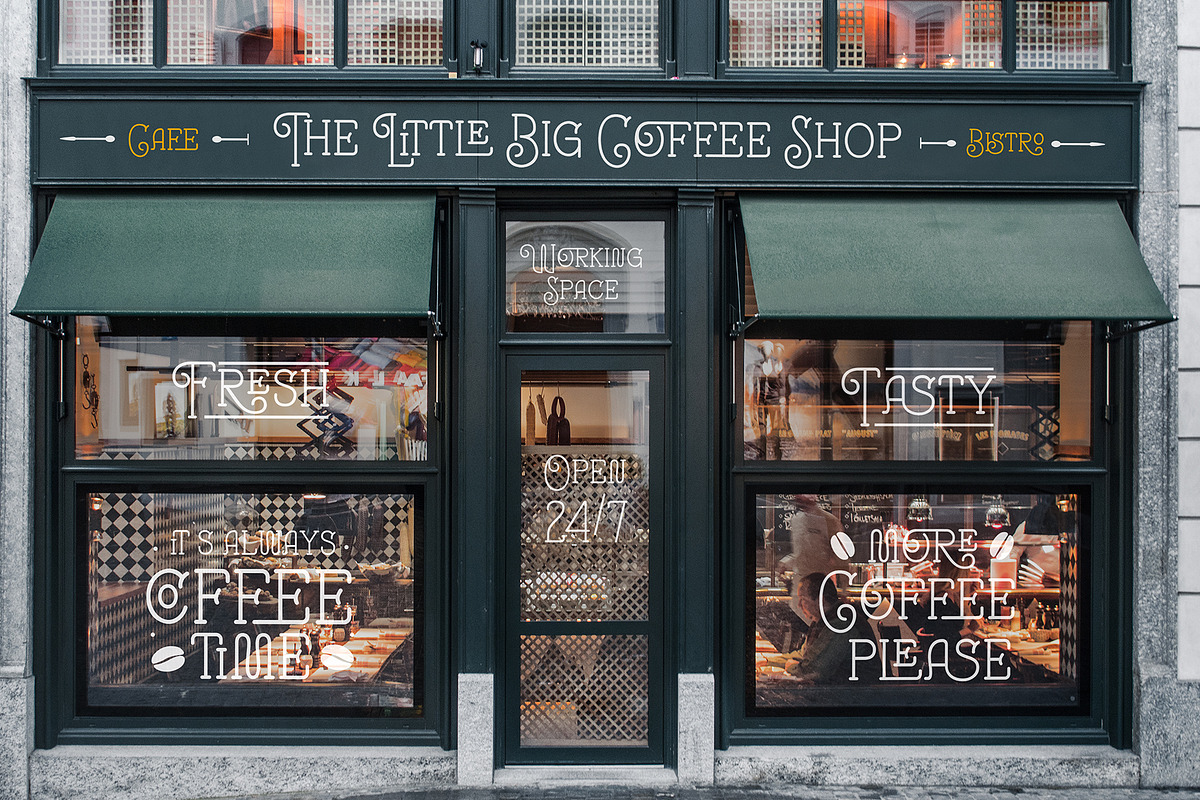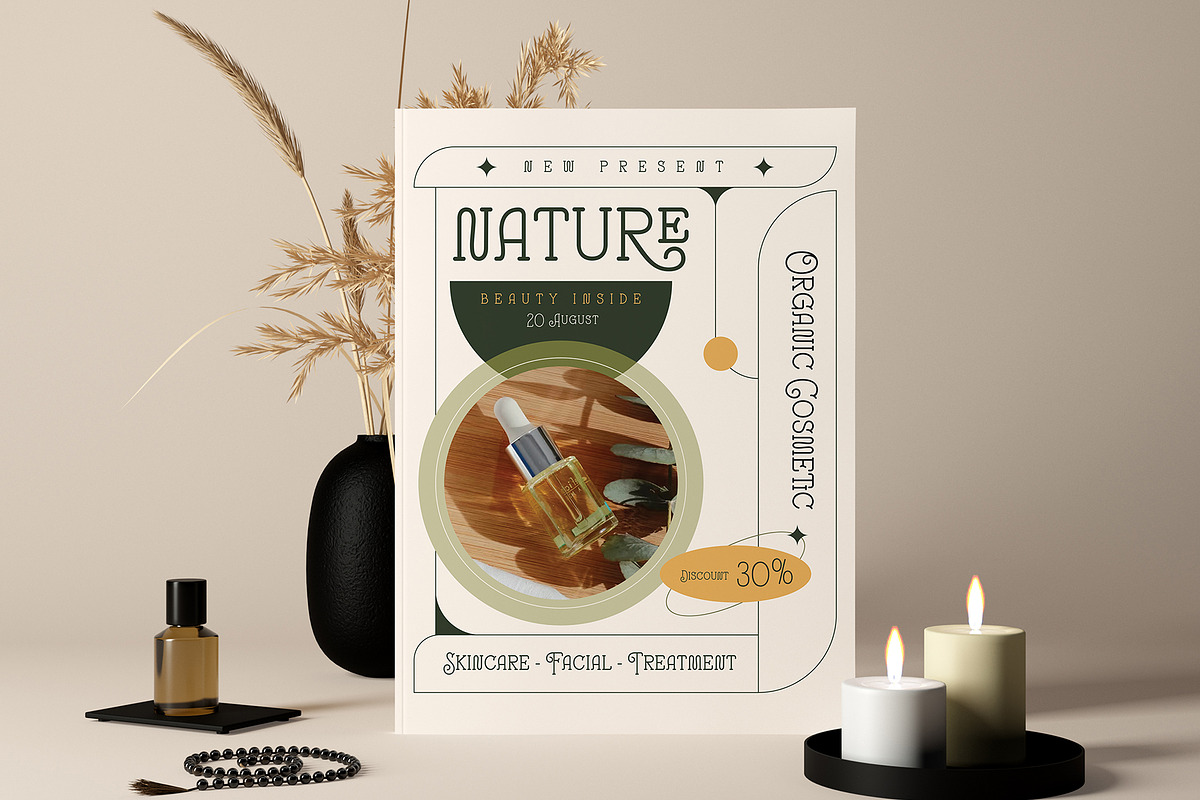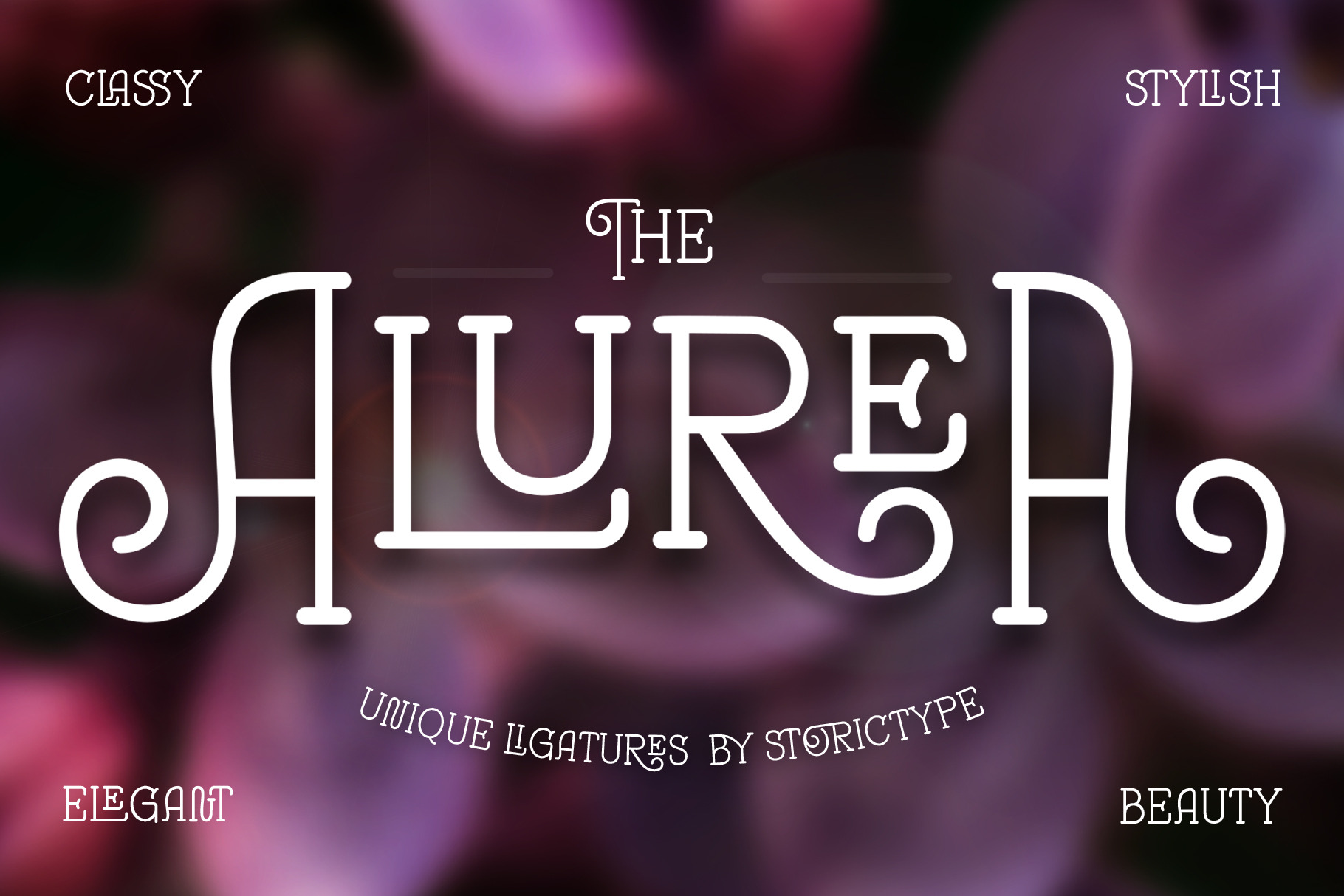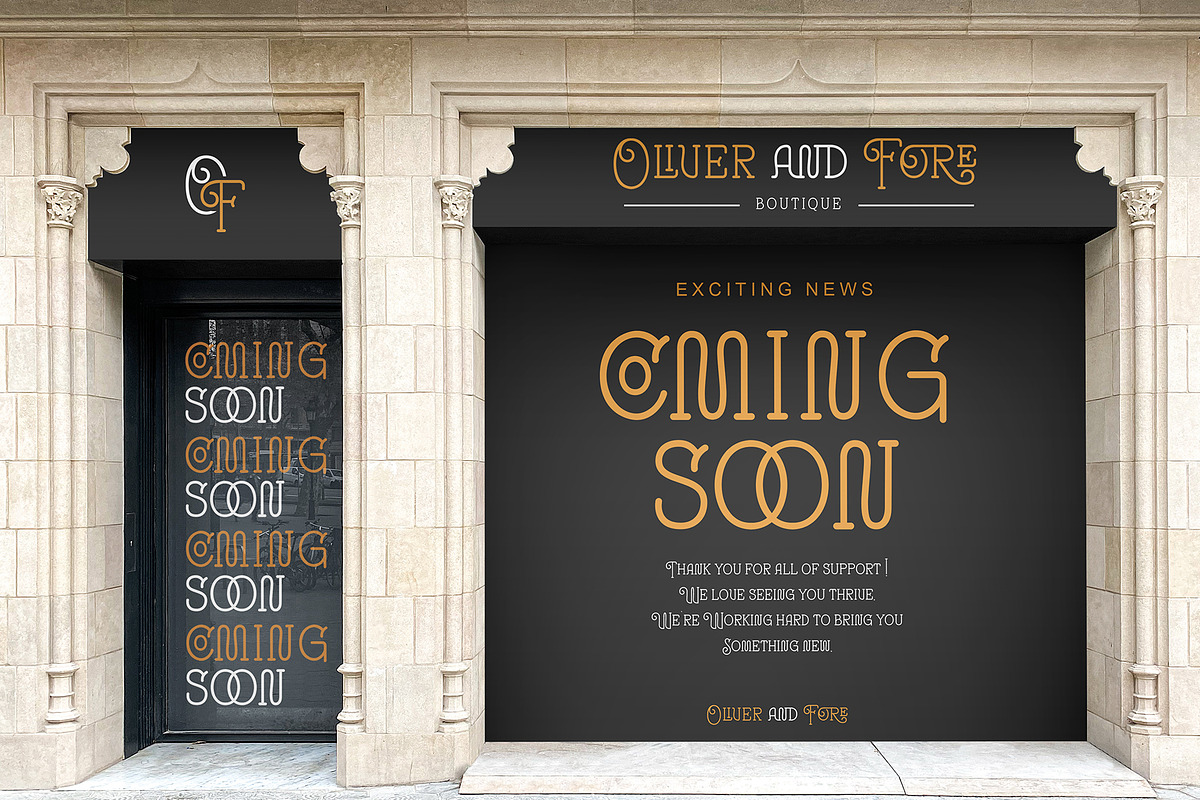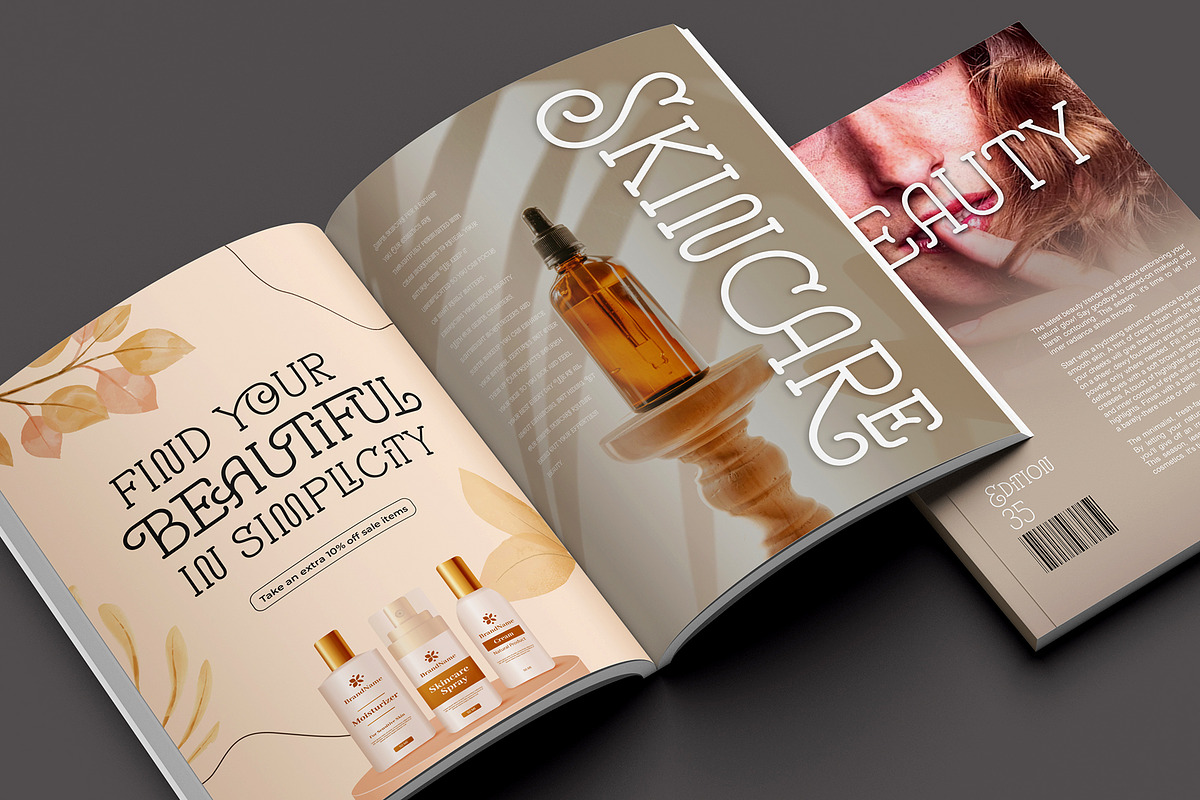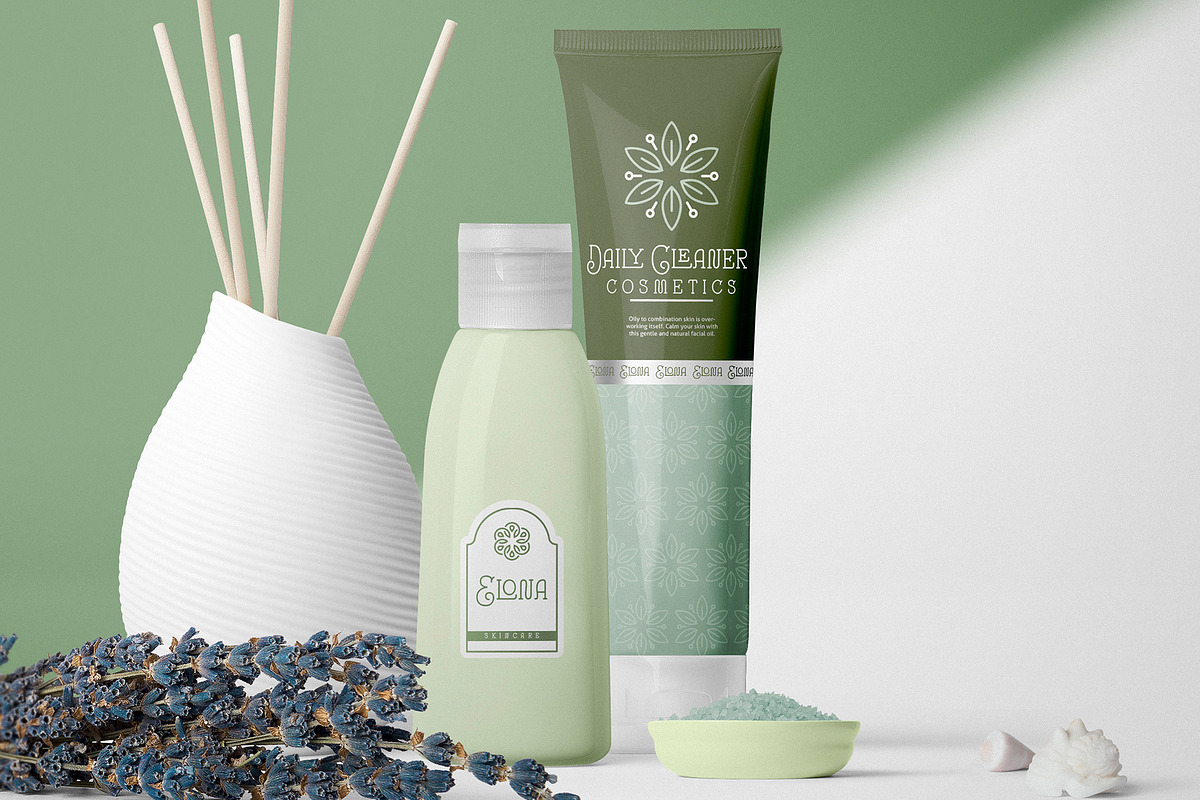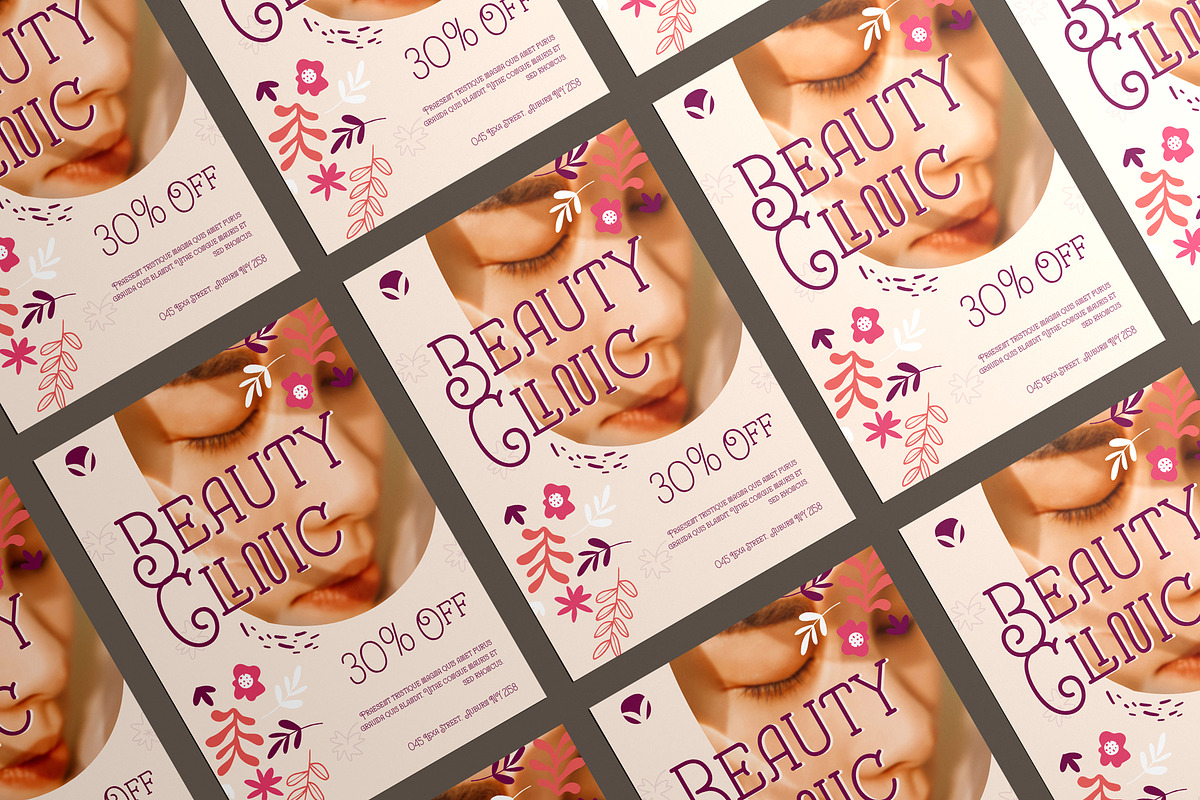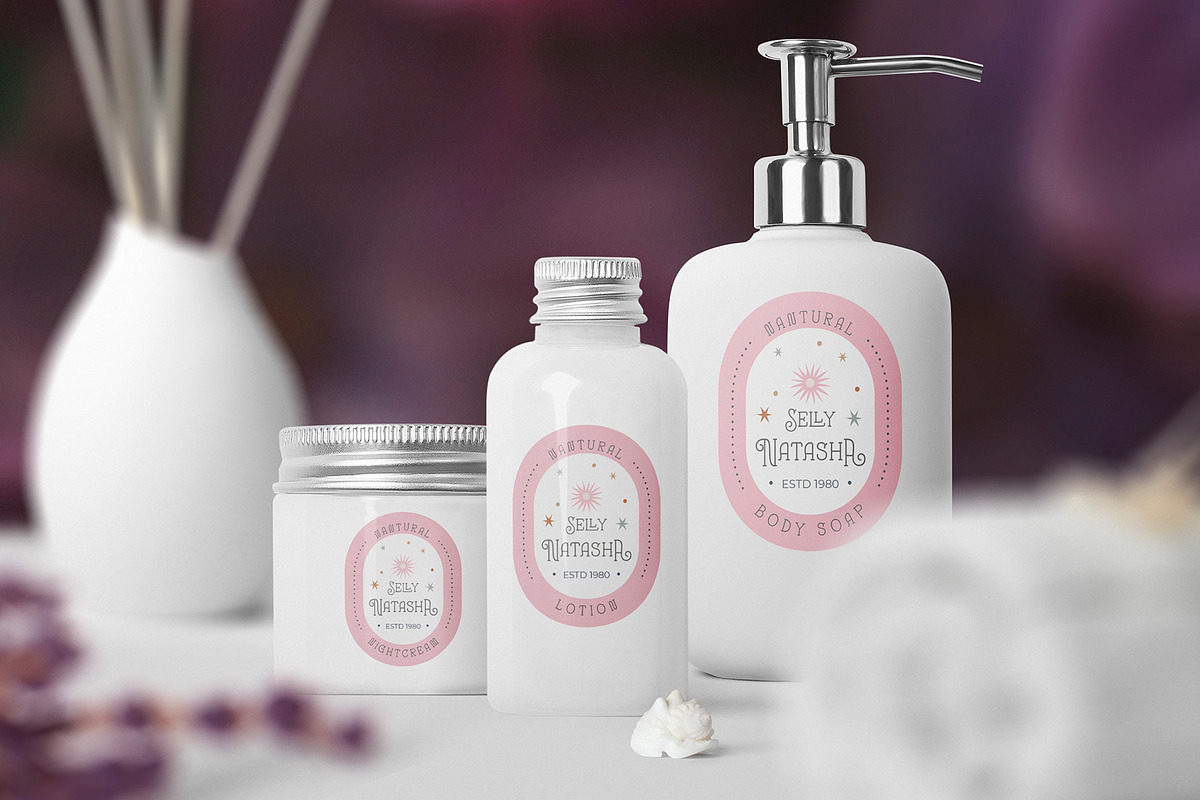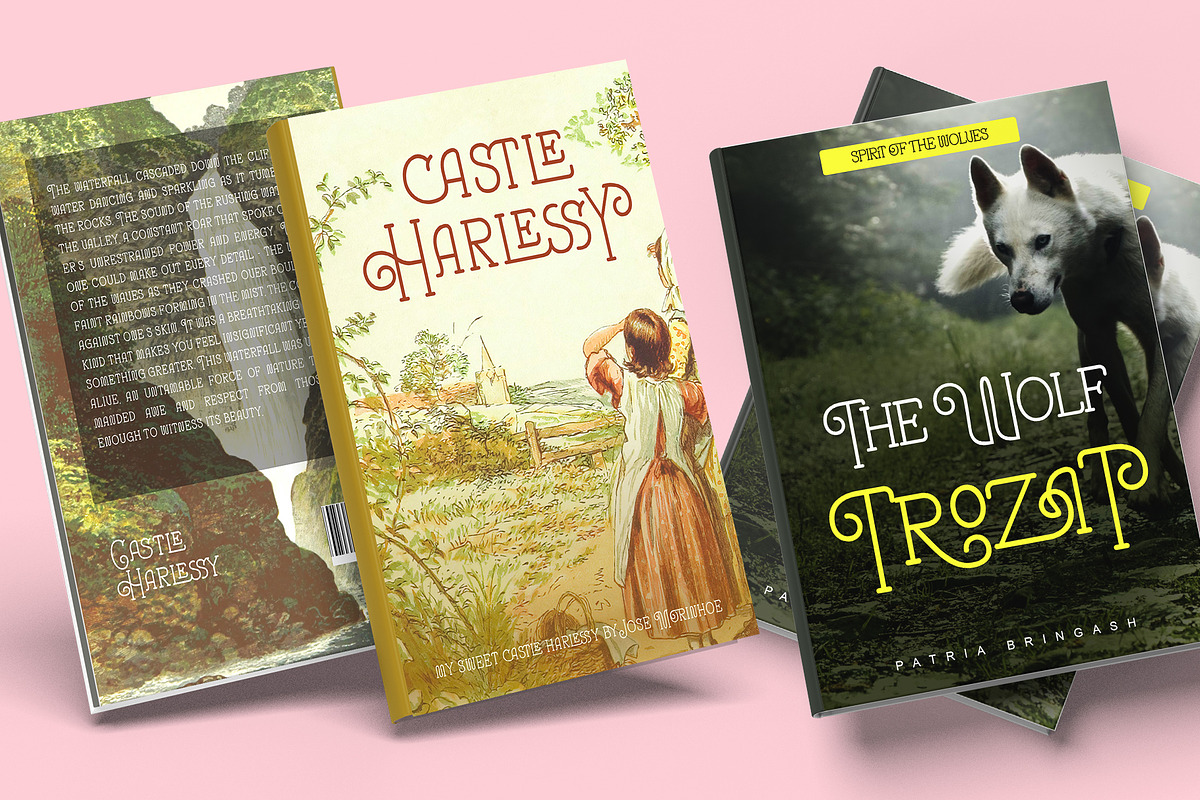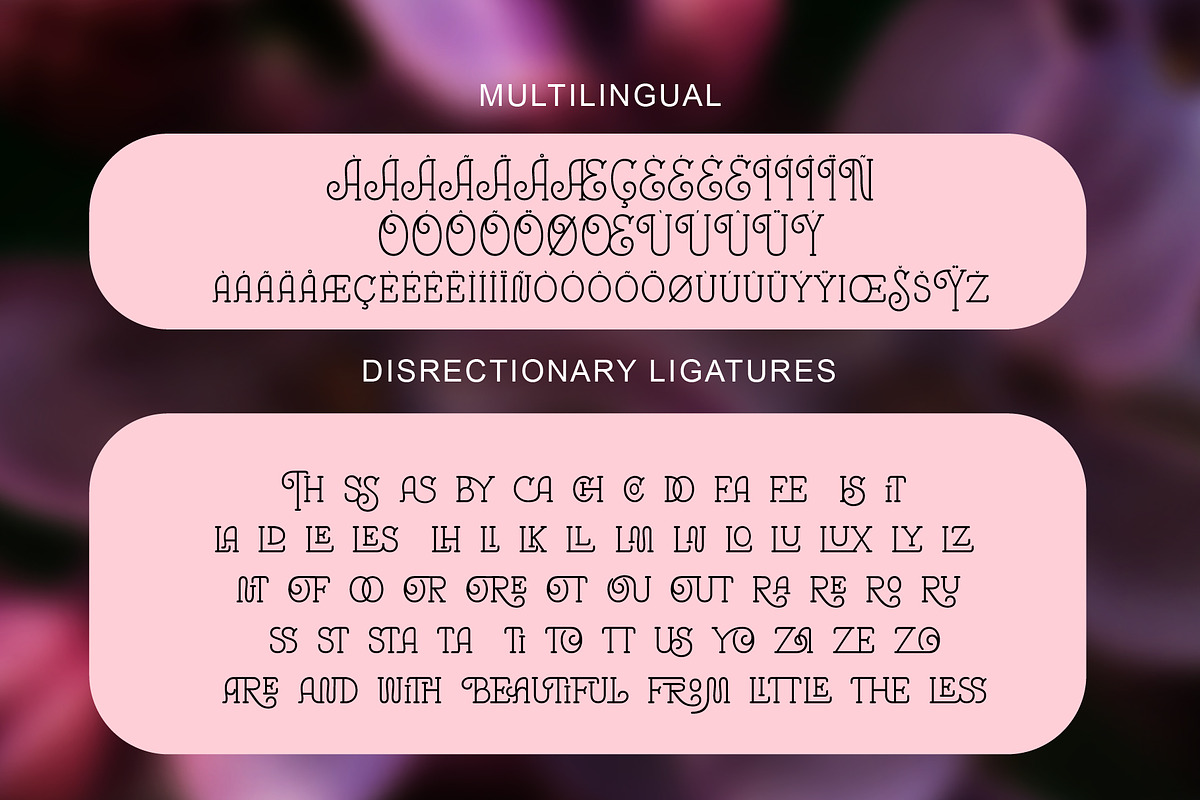
Alurea | Ligature Feminine Font
Alurea is a feminine and girly font with delicate serifs that add a touch of elegance . Unique ligatures the graceful lines and curves evoke a sense of beauty and romance. This is a font for love letters, cover novel, magazine, coffee shop, wedding invitations, and feminine branding. It whispers sweet nothings in your ear with its delicate and intimate forms. The sensual contours beckon with a coy wink and a bashful smile. Like a graceful ballerina effortlessly dancing across the page, this font brings a soft, romantic air to any design. Use it to make a statement with its delicate femininity and inner poise. This is a font that celebrates the beauty, charm, and tenderness
- Character Set A-Z
- Disrectionary Ligatures